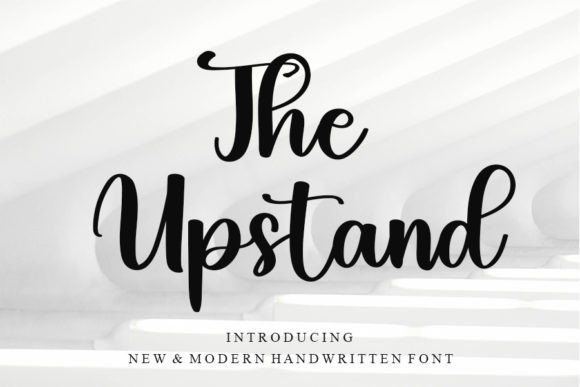
Prepare to witness the Upstand Font, an enchanting script font that will revolutionize your business communication. Its elegant strokes and meticulously crafted characters bring a touch of sophistication to your designs, leaving an indelible mark on your audience.
Uniquely designed to cater to the demands of modern businesses, The Upstand Font exudes professionalism and charisma. Whether you're creating captivating flyers, enchanting wedding invitations, or designing eye-catching logos, this font is your ultimate choice. Its versatility extends to banners, birthday cards, social media posts, and even captivating thumbnails, ensuring a cohesive and polished brand identity across all platforms.
Immerse yourself in a world of boundless creativity with The Upstand Font. Its captivating charm breathes life into your designs, attracting attention and leaving a lasting impression. With a wide spectrum of applications, this font becomes your secret weapon for crafting visually stunning content that resonates with your audience and propels your business to new heights of success.
**Unleash Your Business Potential with The Upstand Font**
Harness the power of The Upstand Font to elevate your business communication to unprecedented levels. Its graceful curves and exquisite details command attention, adding a touch of elegance and refinement to your designs. Imagine the impact of a captivating flyer that captures the essence of your brand and compels customers to take action. Or envision a wedding invitation that exudes romance and sophistication, leaving a lasting impression on your guests.
**Craft a Cohesive Brand Identity**
The Upstand Font empowers you to create a cohesive and distinctive brand identity across all your marketing channels. Its versatility shines through whether you're designing logos, social media posts, or website banners. Seamlessly integrate this font into your marketing arsenal to establish a strong and recognizable presence that sets you apart from the competition.
**Experience the Simplicity and Ease of Use**
The Upstand Font is designed with simplicity and ease of use in mind. Its intuitive design and effortless compatibility ensure a seamless experience for users of all skill levels. Whether you're a seasoned designer or just starting your creative journey, this font will seamlessly integrate into your workflow, allowing you to unleash your creativity without any technical hurdles.